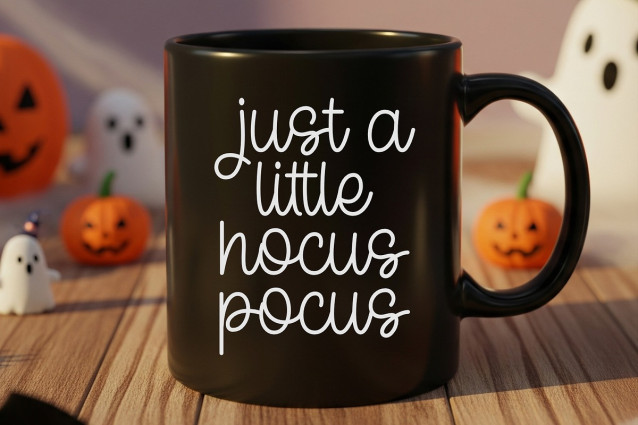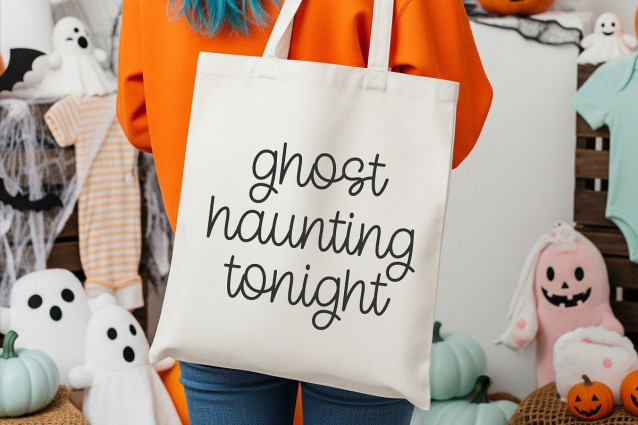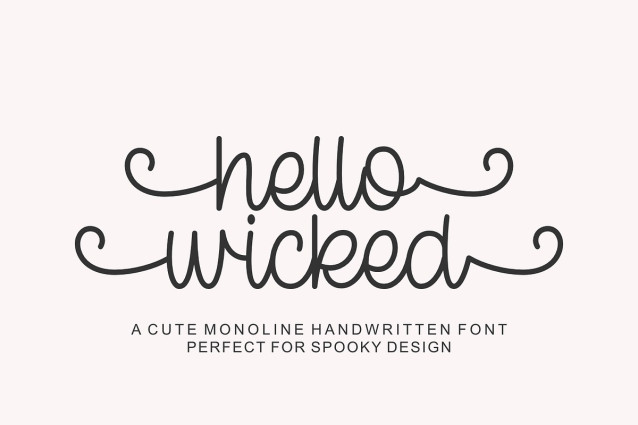
Hello Wicked Font
Hello Wicked Font, an enchantingly whimsical handwritten font! Its quirky style lends an adorable spin to your Halloween-themed designs. Generously loaded with PUA encodings, design possibilities become limitless with this distinct font masterpiece. “Hello Wicked” dares to bring out the playful and fun spirit of the spooky season through your designs. Its unique handwritten feature channels a charmingly offbeat vibe that captivates and elevates your project to a whole new level. So, if enchantingly adorable is the mood you are aiming for, say hello to “Hello Wicked”!